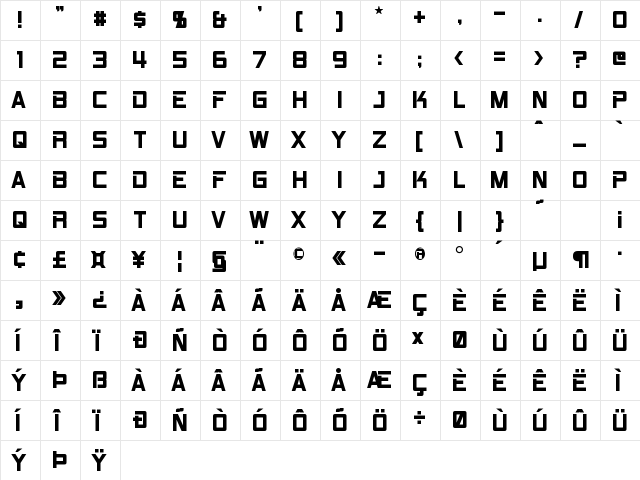
RPM Bold
| Foundry | Pixel Sagas |
| Designer | Neale Davidson |
Design Context for RPM Typeface
RPM offers clean, dependable letterforms without strong stylistic allegiance, making it a practical choice for designers who need flexibility. The heavy weight commands attention and anchors typographic hierarchies.